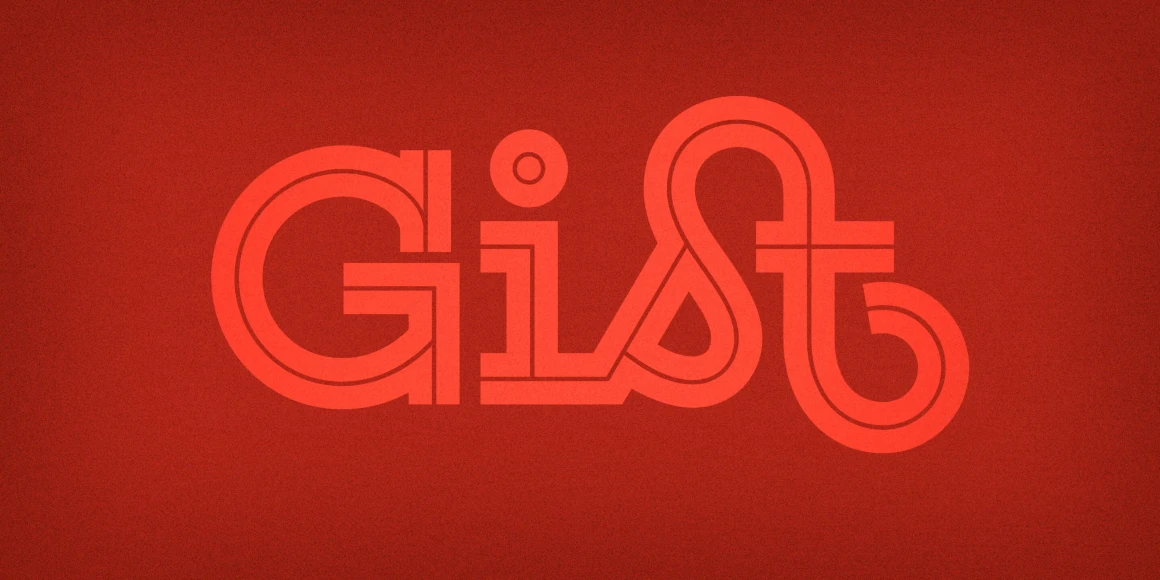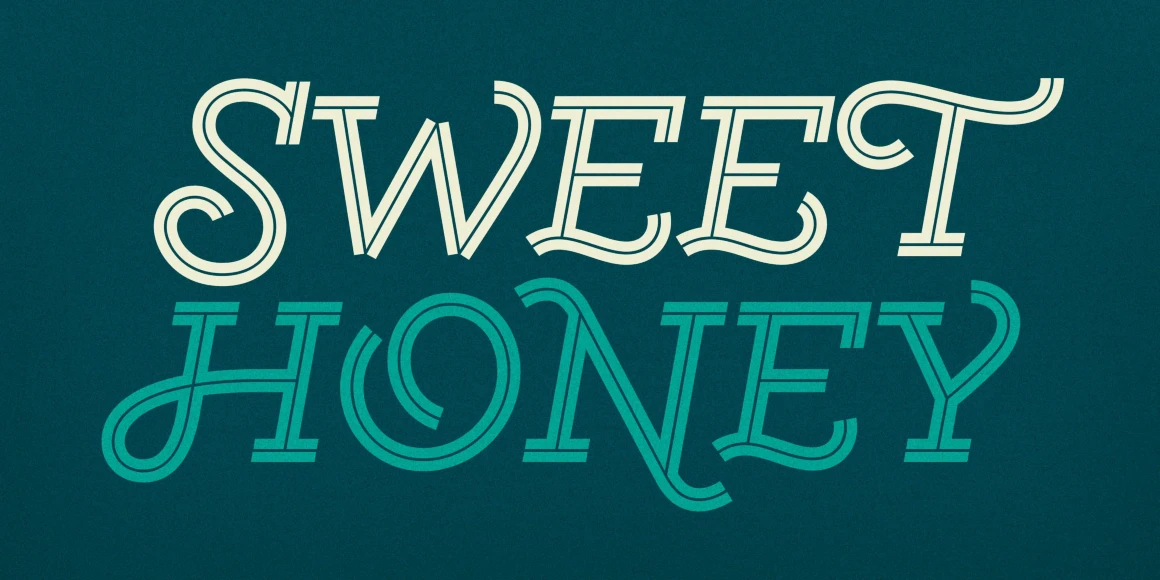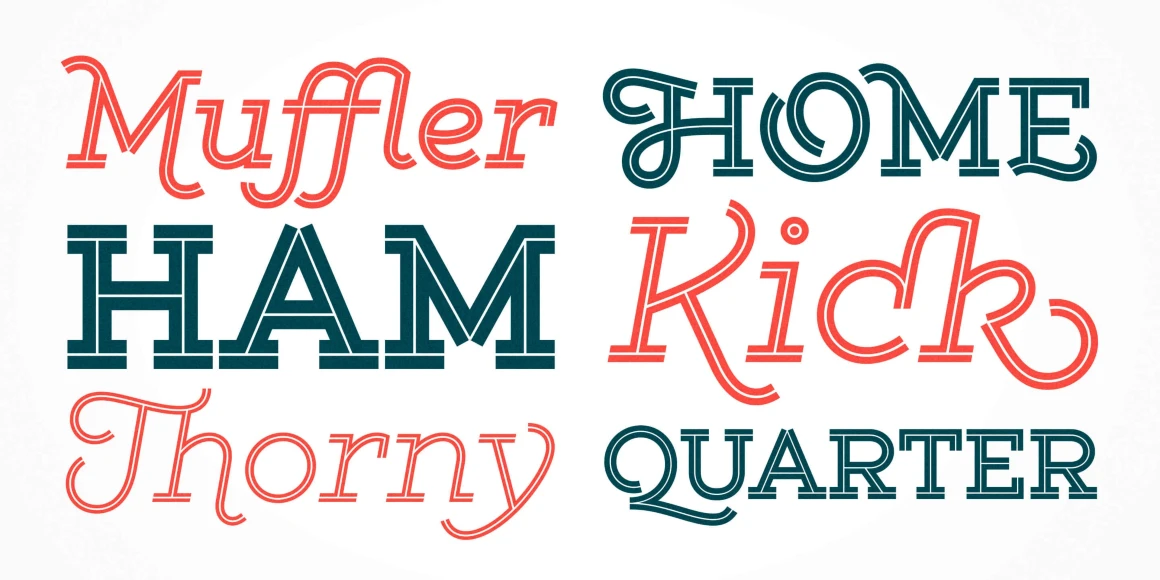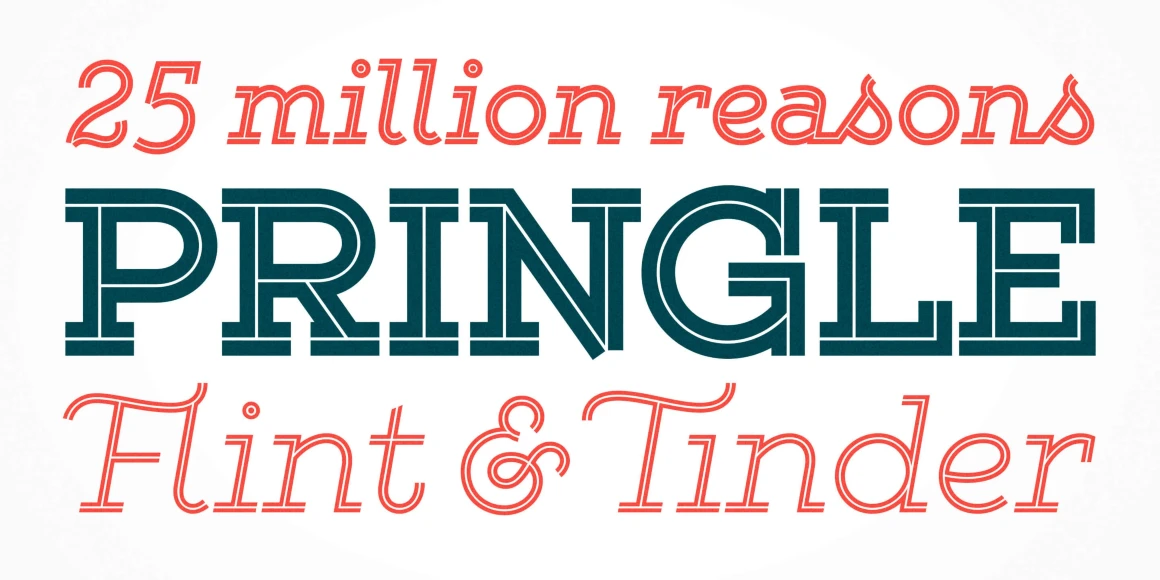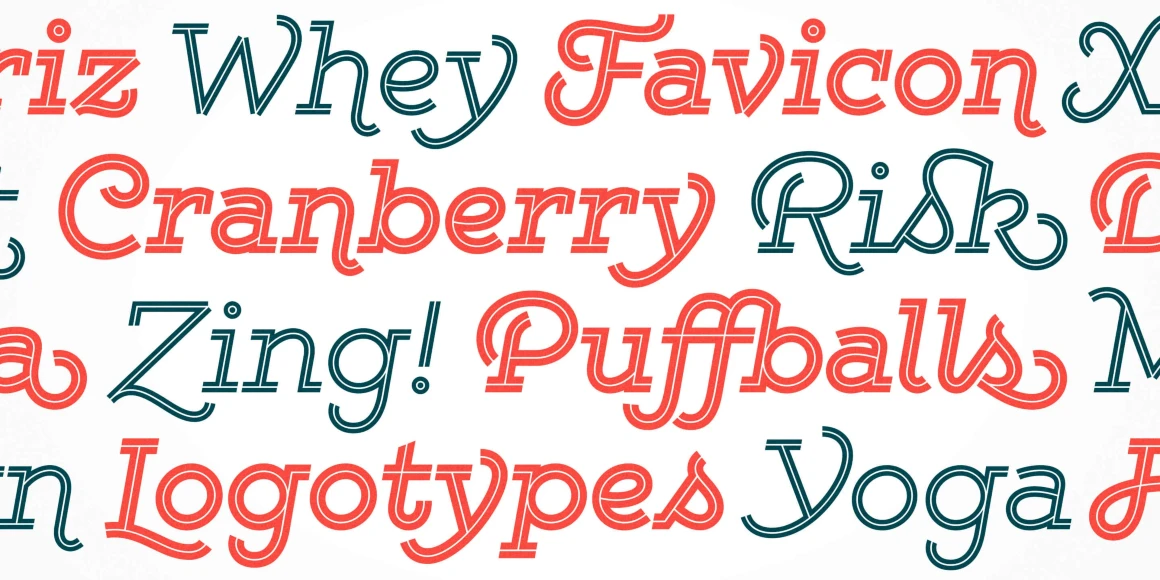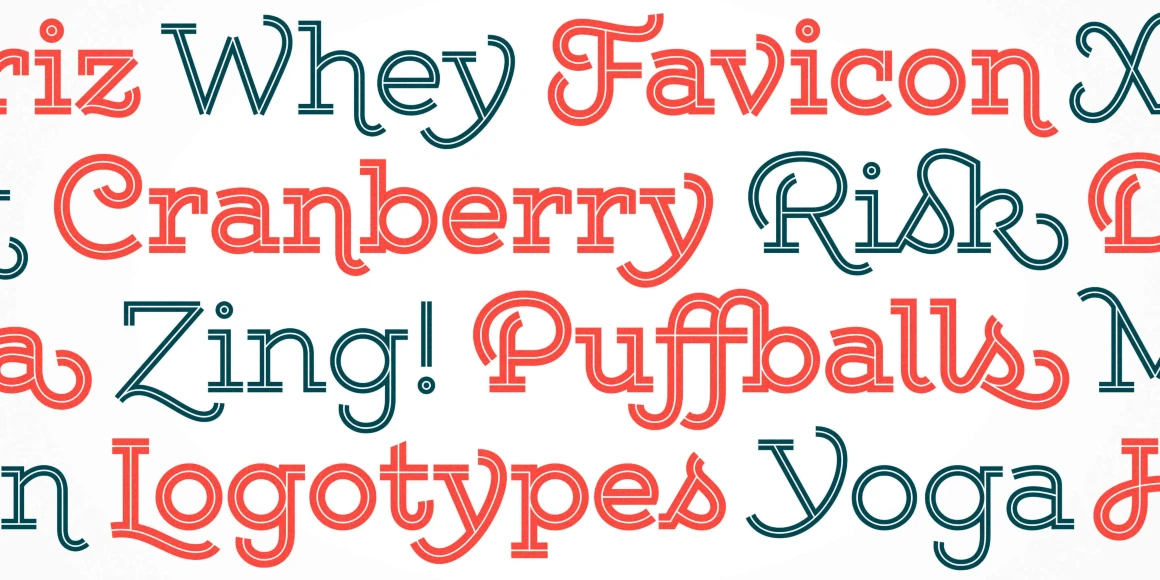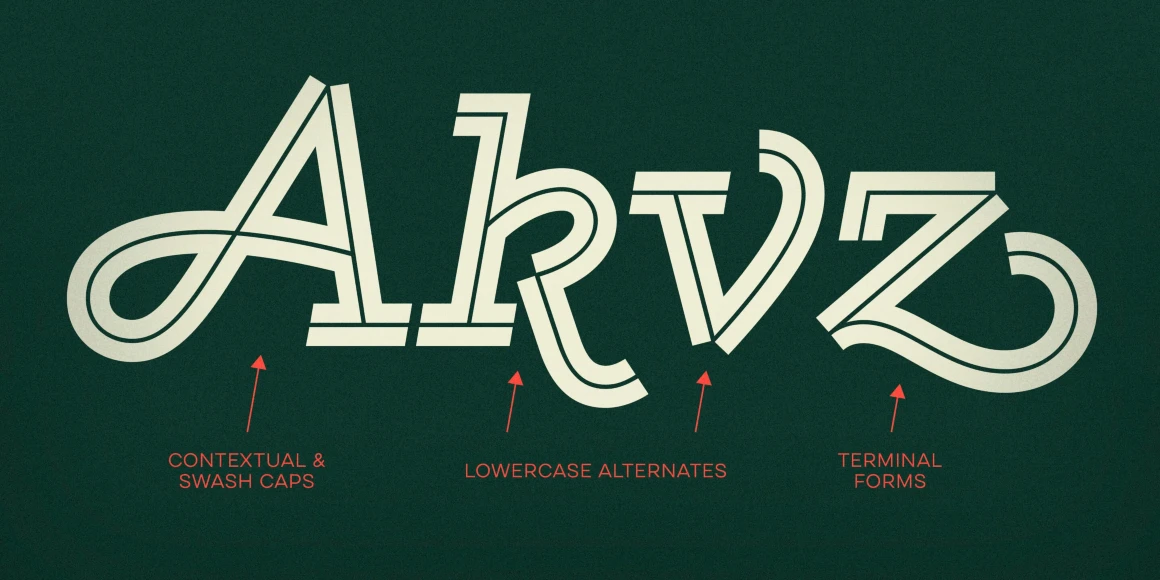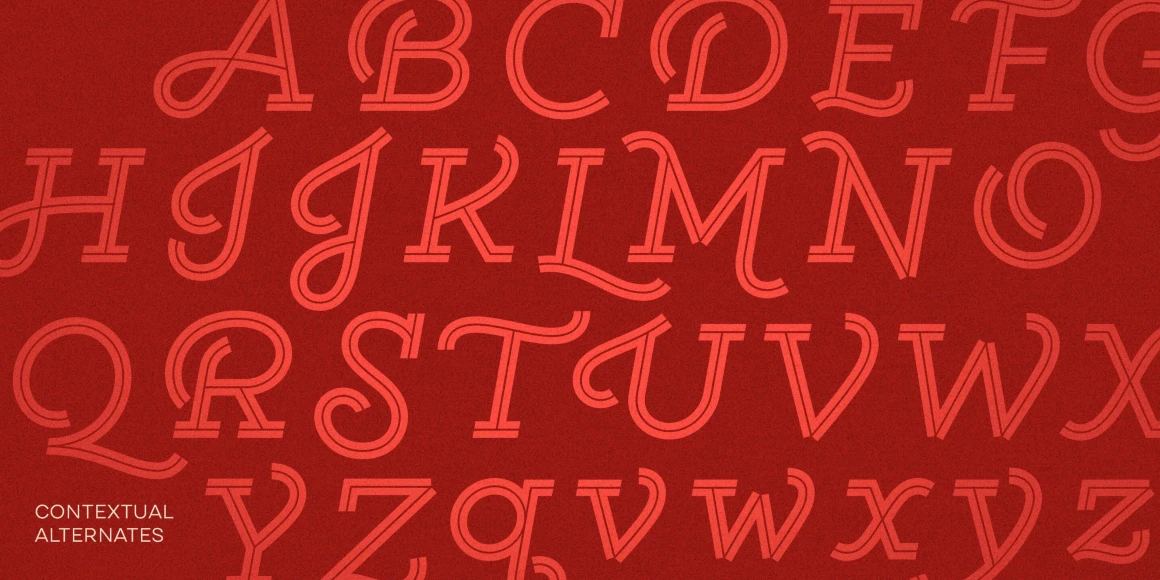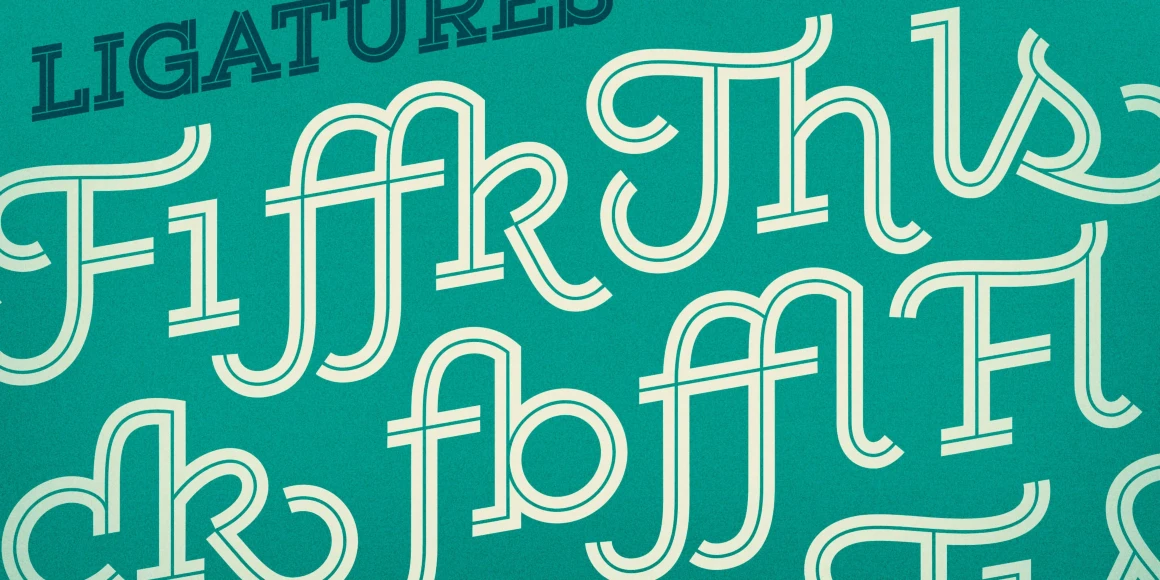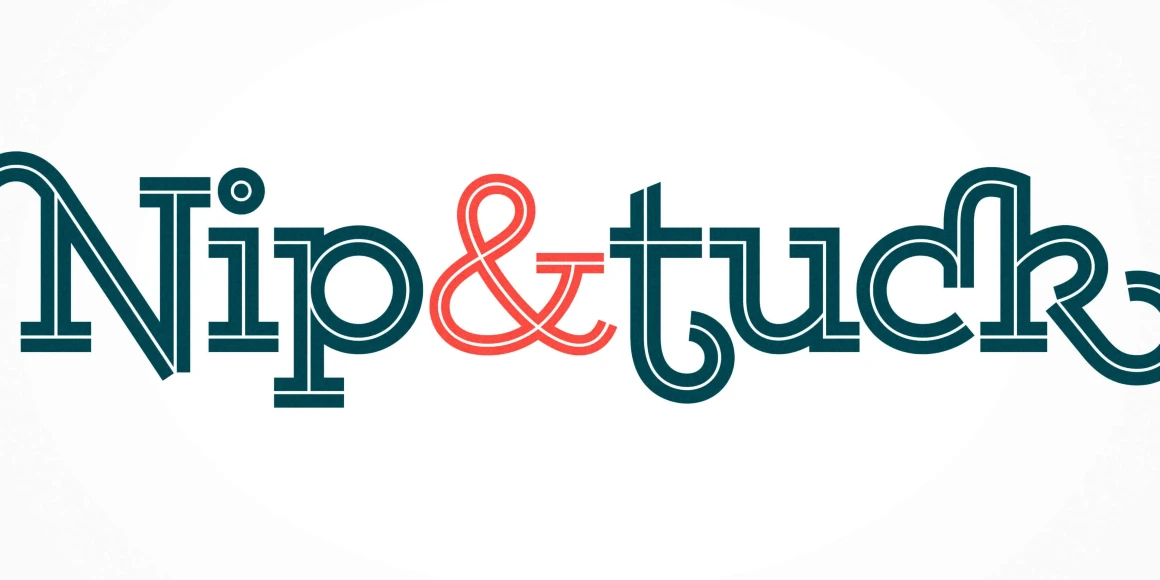
Gist from Yellow Design Studio is an inline slab serif with a retro yet modern vibe. It’s a collision between monoline slab and indie script. With 627 glyphs per weight, it’s highly customizable…either keep it simple with the base character set or use ligatures, alternates and swashes for extra flair. All-caps typesettings have an especially retro edge. Also included are line layers for adding color to the inline areas.